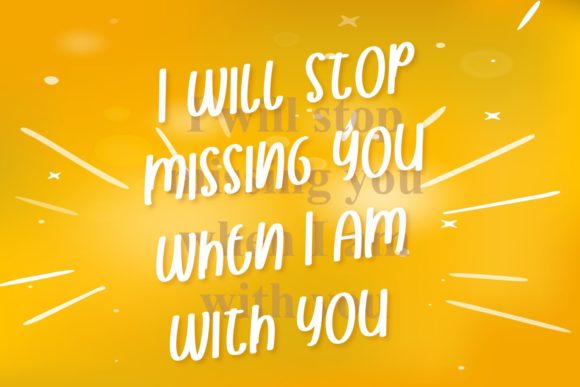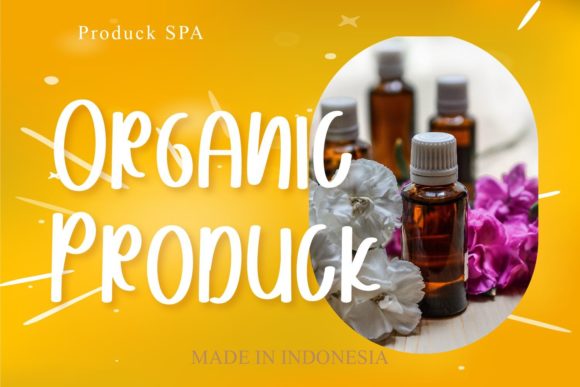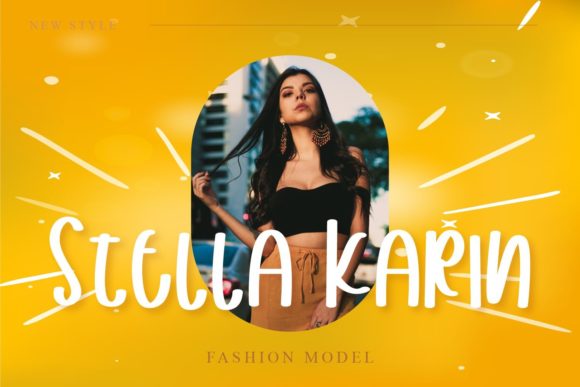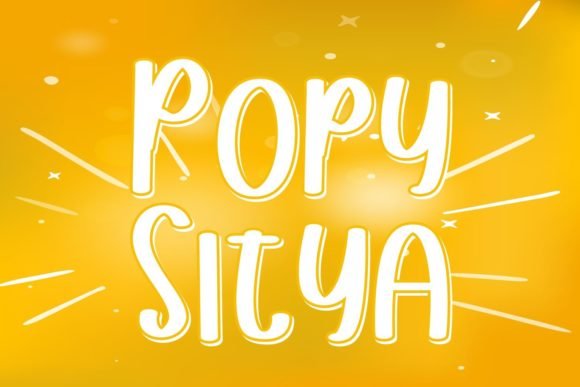
Introduction to Popy Sitya Font
Popy Sitya is a cute, quirky and whimsical handwritten font.
Its informal and friendly style makes this font the ideal choice for each of your favorite creations .